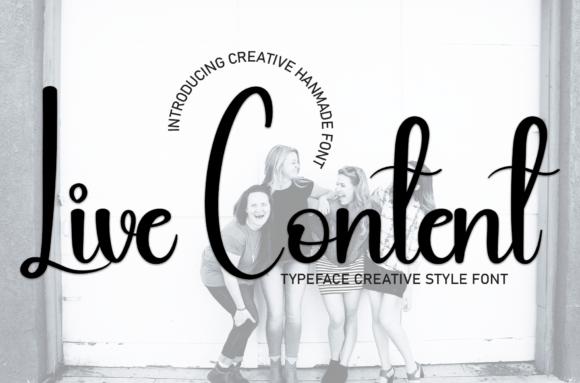
About Live Content
Live Content is a sweet and friendly handwritten font. Creative and cute, this font is ideal for writing wedding invitations, cards, or any other design that might need a fun touch!